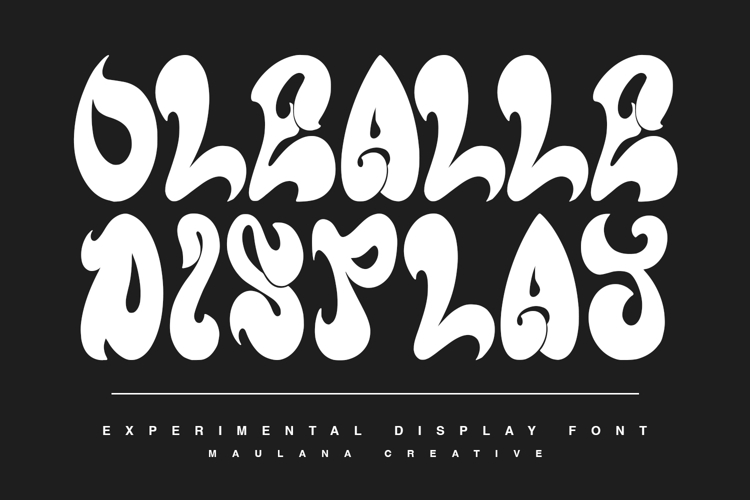
Olealle is a experimental display font. To give you an extra creative work. Olealle experimental display font support multilingual more than 100+ language. This font is good for logo design, Social media, Movie Titles, Books Titles, a short text even a long text letter and good for your secondary text font with sans or serif. Make a stunning work with Olealle experimental display font.